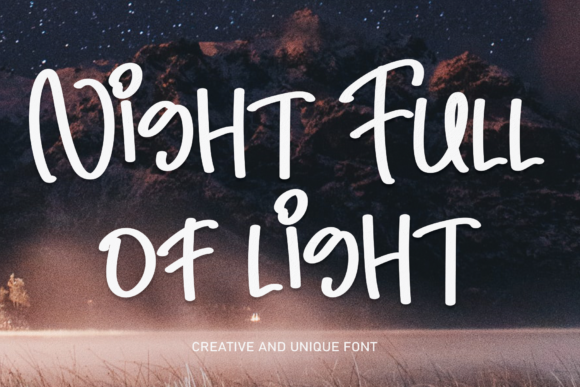
Night Full of Light Brings Handcrafted Charm to Every Label and Card
I was sitting at my desk with a blank candle label template open on my screen. The wax had been poured the night before, and now it was time to name the collection. I wanted something that felt warm, inviting, and a little romantic — not stiff or corporate. I opened my font menu, and there it was. Night Full of Light. One click and the text transformed from a basic placeholder into something that looked like it had been hand-lettered with care. That was the moment I knew this font would become a staple in my shop.
Night Full of Light is not just another script font. It carries a personality that feels both modern and timeless. The letterforms flow with natural rhythm, with strokes that taper elegantly and curves that feel deliberate but unforced. It has a handwritten quality that avoids looking overly polished or mechanical. For anyone creating products that need a personal touch — wedding invitations, boutique tags, greeting cards, or wall art — this typeface brings a sense of warmth that standard fonts simply cannot replicate.
A Font That Feels Like It Was Made for Your Hands
What struck me first about Night Full of Light was how naturally it pairs with real, tactile materials. I tested it on a few different mockups: a kraft paper product tag, a white ceramic mug, and a linen tote bag. In every case, the font looked like it belonged. The swashes and terminal strokes added just enough flair without overwhelming the design. For short phrases and single words, it shines. Names, titles, shop names, and short sentiments all look balanced and intentional. Longer sentences are readable too, though I find it most effective when used for display purposes — think a greeting card cover, a wedding welcome sign, or a featured line on a social media graphic.
One of the first products I made with Night Full of Light was a set of soy candle labels. The scent name was written in the font across a simple cream label, and I paired it with a clean sans serif for the scent notes on the back. The contrast between the flowing script and the straightforward sans serif created a professional, layered look that elevated the whole product. Customers often mention how the labels feel special, like they were written by hand just for them. That emotional connection is exactly what handmade sellers aim for, and this font delivers it naturally.
Bringing Wedding Stationery to Life with a Handwritten Touch
Wedding invitation suites are another area where Night Full of Light truly shines. I recently designed a small batch of invitation mockups for a client who wanted something romantic but not overly ornate. The couple's names were set in the font across the top of the invitation, with a subtle gold foil effect applied digitally. The result was elegant without being fussy. The font's natural variation in stroke thickness gave the text a soft, organic feel that paired beautifully with a simple serif font for the ceremony details.
For enclosure cards, direction cards, and RSVP inserts, I used a smaller point size and kept the layout airy. Night Full of Light remains readable even at smaller sizes, which is not always the case with handwritten fonts. I tested a print sample at 12 points and the letterforms held their shape well. That is a huge advantage when you are producing physical products that need to be legible in real life, not just on a screen.
Printable Wall Art and Seasonal Shop Favorites
Printable wall art is one of my best-selling categories, and Night Full of Light has become a go-to choice for my typography-based designs. I use it for single-word prints like "breathe," "gather," or "home," and for short quotes that fit within a standard 8x10 frame. The font adds a sense of intention to each piece, as if the words were written by a calligrapher rather than typed by a machine. I have also used it for seasonal designs — think fall farmhouse signs with "give thanks" or winter prints with "let it snow." The font adapts to the mood of the season without losing its identity.
When designing for print, I always recommend testing a small proof before committing to a full run. Night Full of Light works well on matte paper, textured cardstock, and even canvas. The subtle details in the letterforms become more apparent on uncoated paper, giving the design a tactile, crafty feel. For digital downloads, the font renders beautifully on screen, which matters for listing images and mockup previews. I have found that designs using this font tend to photograph well on product mockups, which helps with conversion on marketplace platforms.
Stickers, Tags, and the Little Details That Build a Brand
As a handmade seller, I know that the small details often make the biggest impression. Product tags, hang tags, sticker sheets, and packaging inserts all contribute to how a customer perceives your brand. Night Full of Light helps me create a cohesive look across these touchpoints. I use it on my shop's logo text, on thank-you cards included with every order, and on small round stickers that seal the tissue paper wrap. The font unifies everything without needing a complicated design system.
For sticker designs, I have tested Night Full of Light on both matte and glossy vinyl. The fine strokes and swashes hold up well when cut with a Cricut or Silhouette machine, provided the text is not too small. I recommend keeping name phrases and short words above a half-inch height for clean cuts. Swashes that extend far beyond the main letterforms may need a bit of extra attention during weeding, but the result is worth it. A well-cut sticker with this font looks like a premium boutique item, not a generic mass-produced label.
If you are a crafter, a printable creator, an invitation designer, or a small shop owner looking to elevate your product presentation, Night Full of Light is worth a close look. It brings a beautiful handwritten quality to your work without requiring you to actually write it by hand. And for makers who value both efficiency and artistry, that combination is rare and valuable.